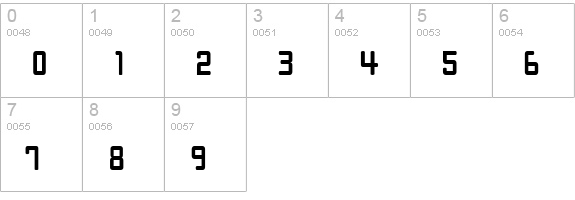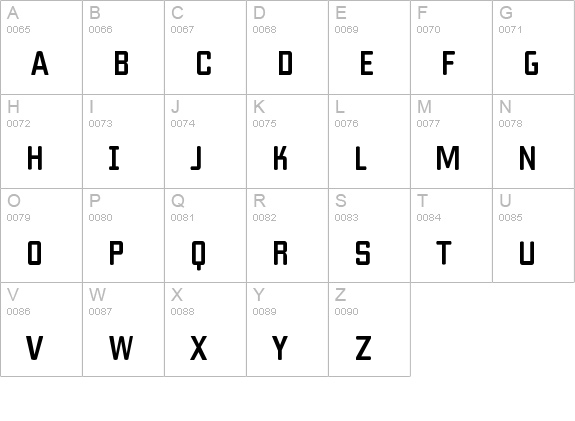
Introducing PFHipster Unicode font – a trendy and stylish typeface that is perfect for adding a touch of sophistication to your designs. This unique font features a modern hipster vibe with its sleek lines and geometric shapes, making it a great choice for branding, logos, posters, and more. Not only does PFHipster Unicode font offer a sleek and contemporary look, but it is also available for free download at FontsMarket.com. This means you can easily access this versatile font and use it in your projects without any cost. With its extensive character set and Unicode support, PFHipster Unicode font is a versatile choice for designers looking to add a touch of modern flair to their work. Whether you're creating a sleek logo for a new brand or designing a stylish poster for an event, PFHipster Unicode font has you covered. Download this free font today and elevate your designs with its trendy and eye-catching style.